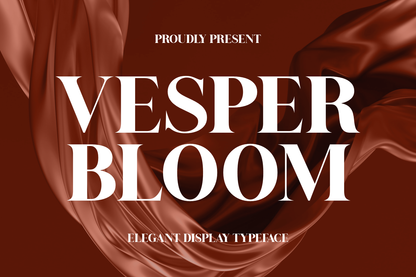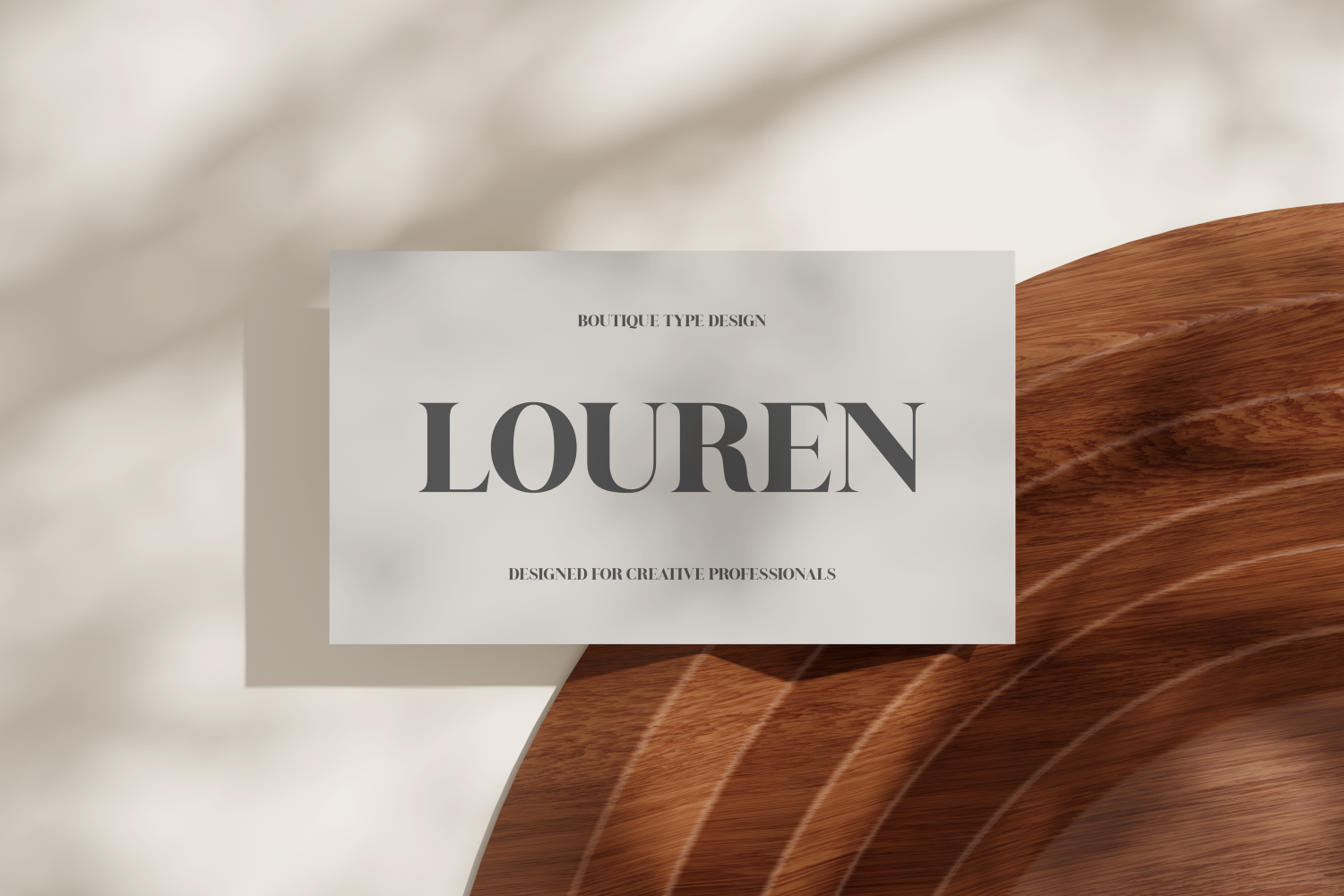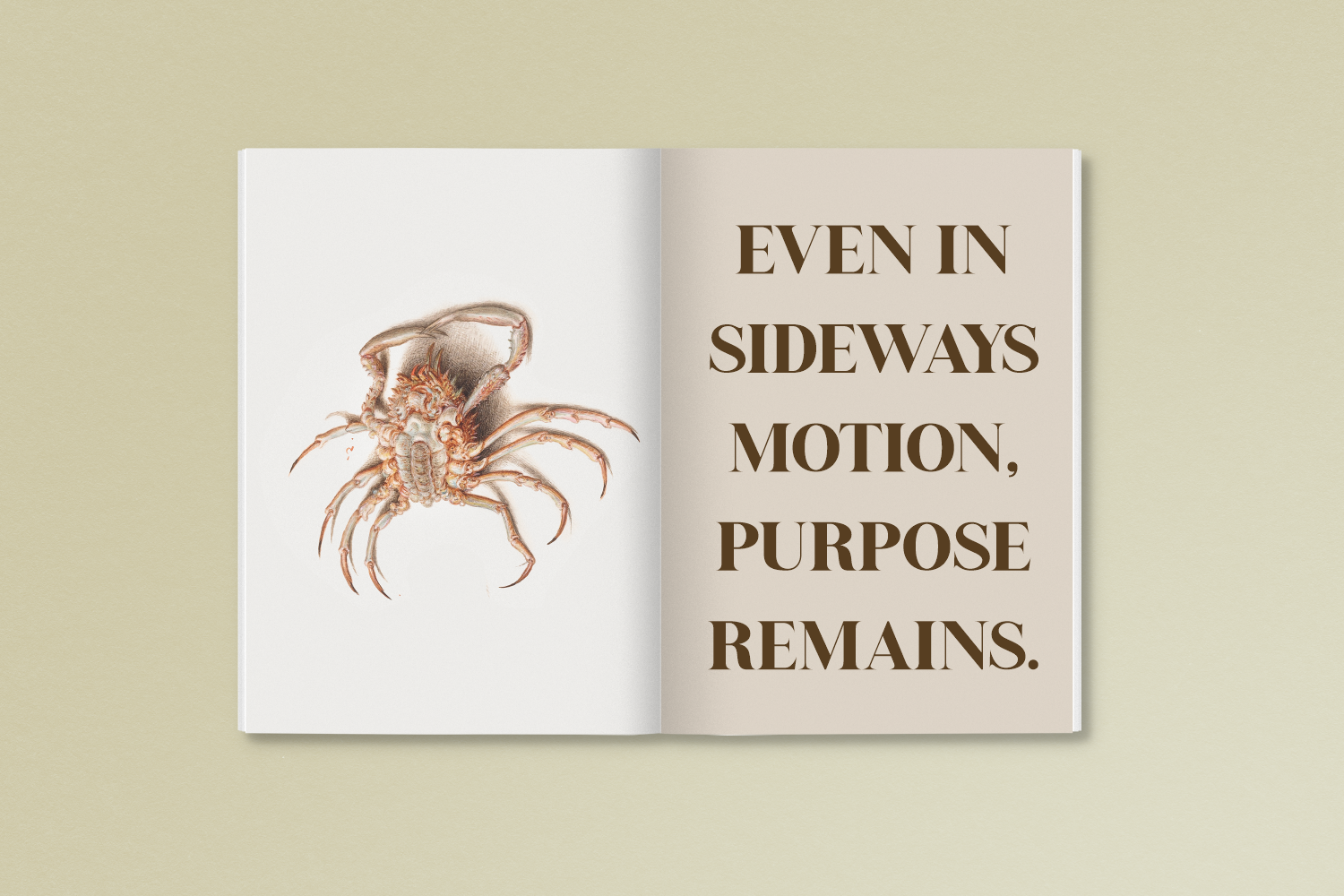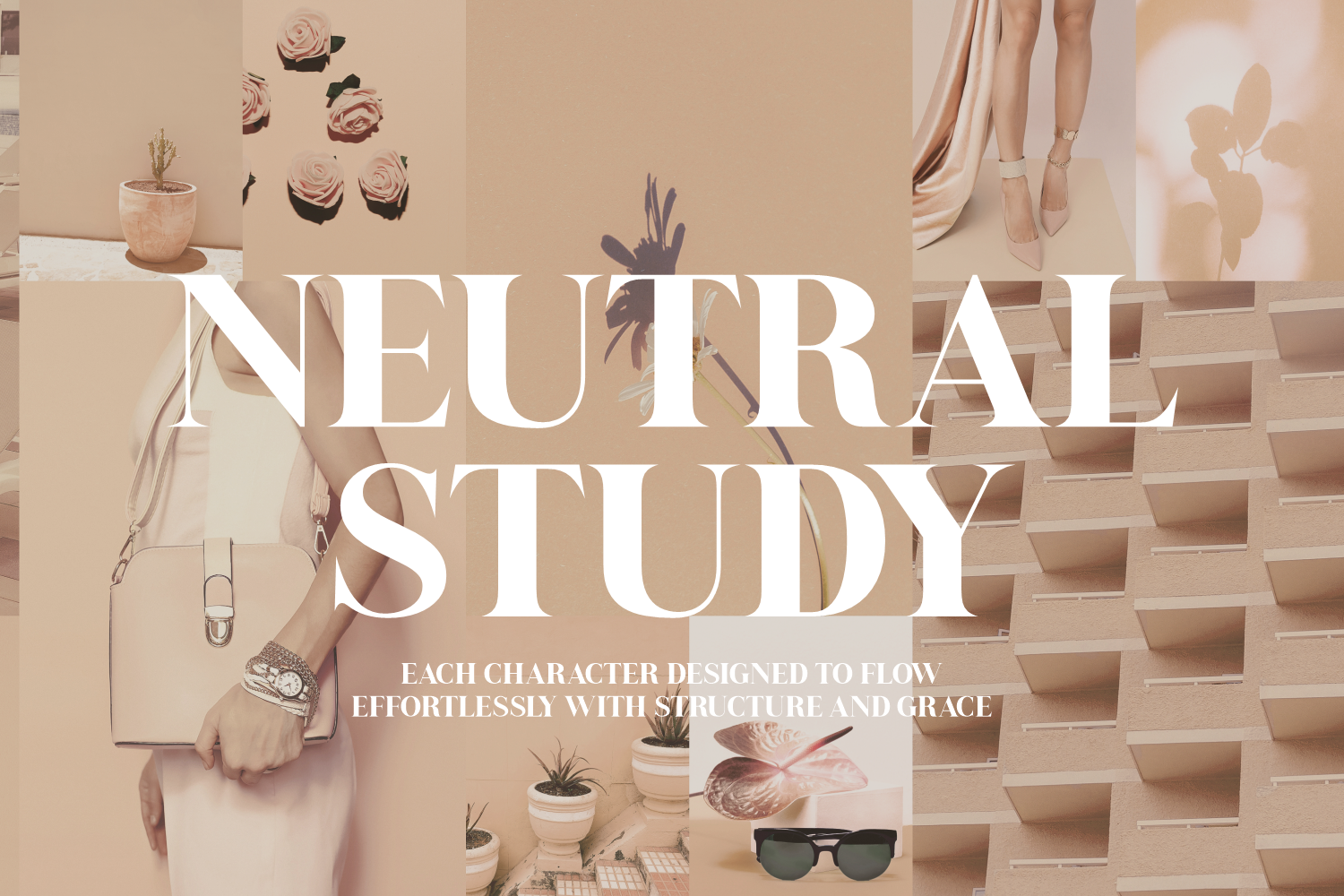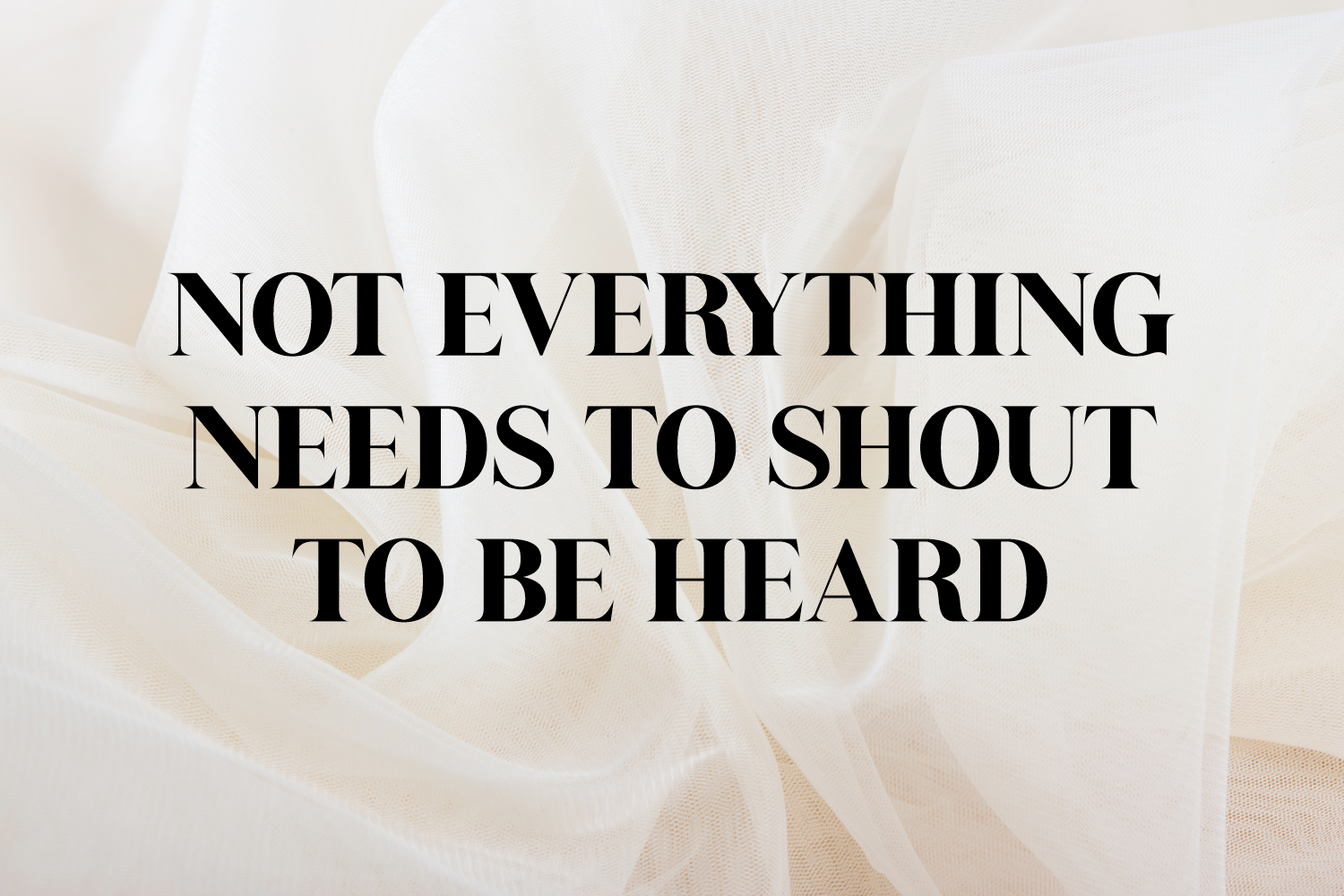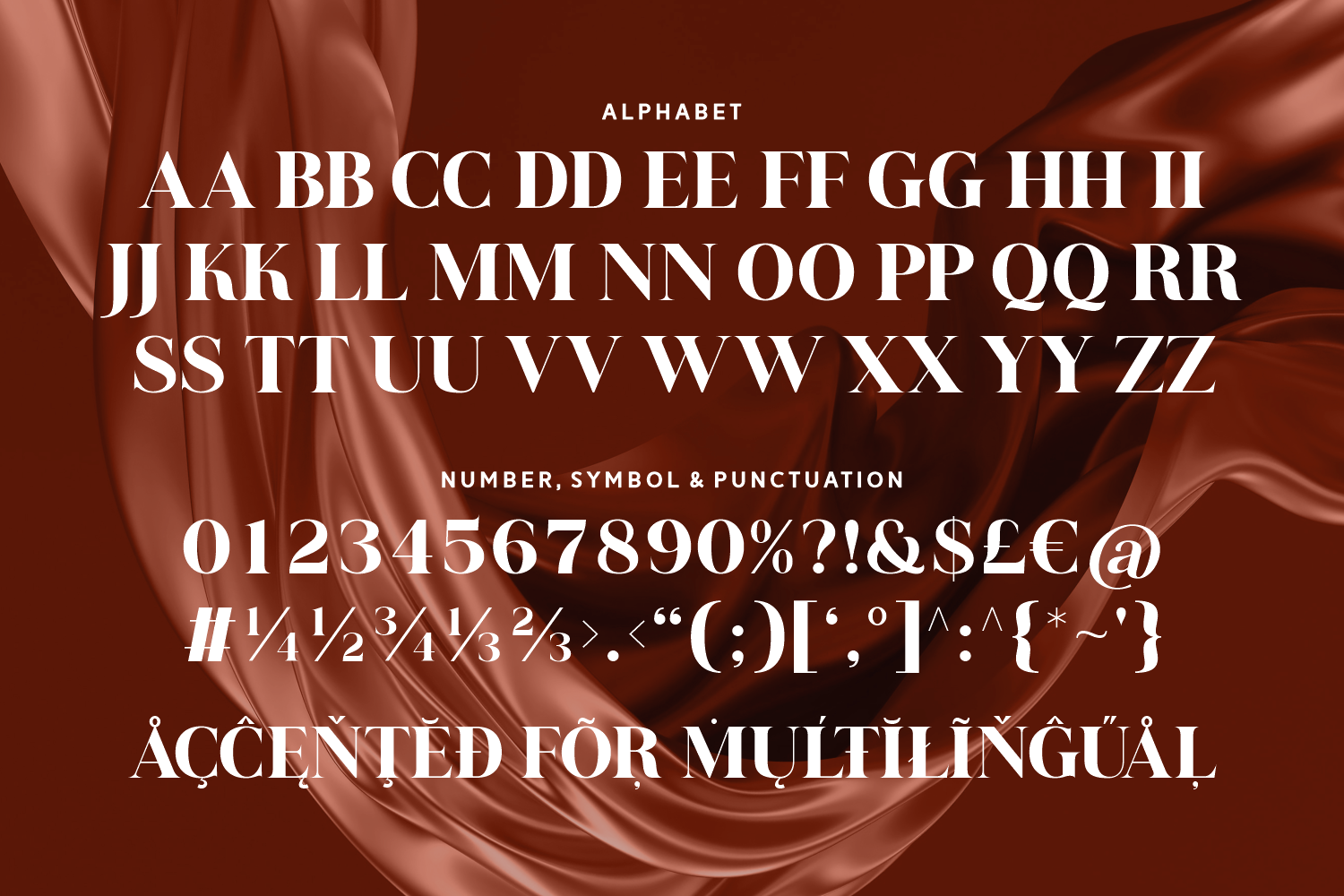
Vesper Bloom is an elegant display serif typeface that blends sharp sophistication with dramatic flair. This typeface commands attention with style, delivering both beauty and impact in every design.